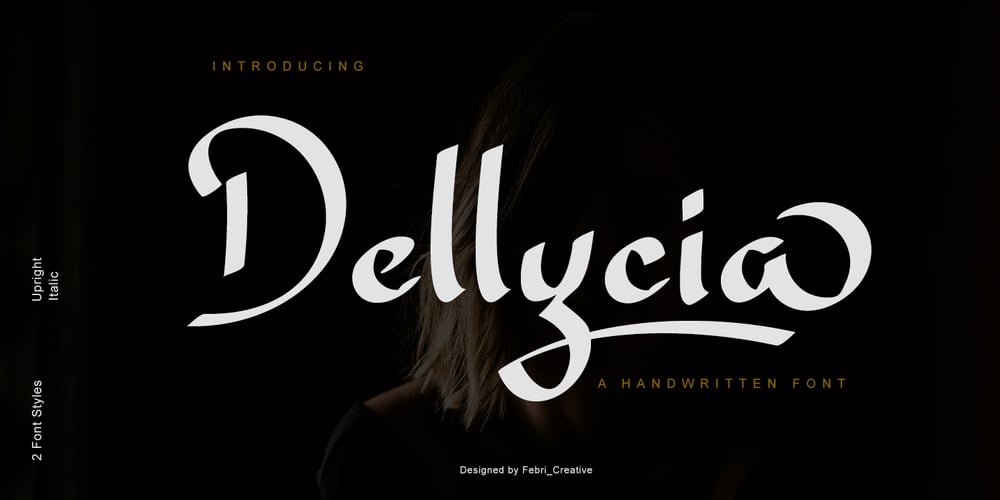
Dellycia Font Family was designed by Febrianto Yuwono and published by Febri Creative. Dellycia contains 2 styles and family package options. Dellycia is a modern handwritten font with a subtle touch. It comes in 2 styles, namely upright and italic.This font is designed with a powerful OpenType feature in mind. It includes multilingual support, numbers, punctuation, ligature, alternate and much more. It is suitable for graphic design and use of any screen. Dellycia is great for the web, brands, product promotions, product names, companies and also for other projects and will make your design perfect.